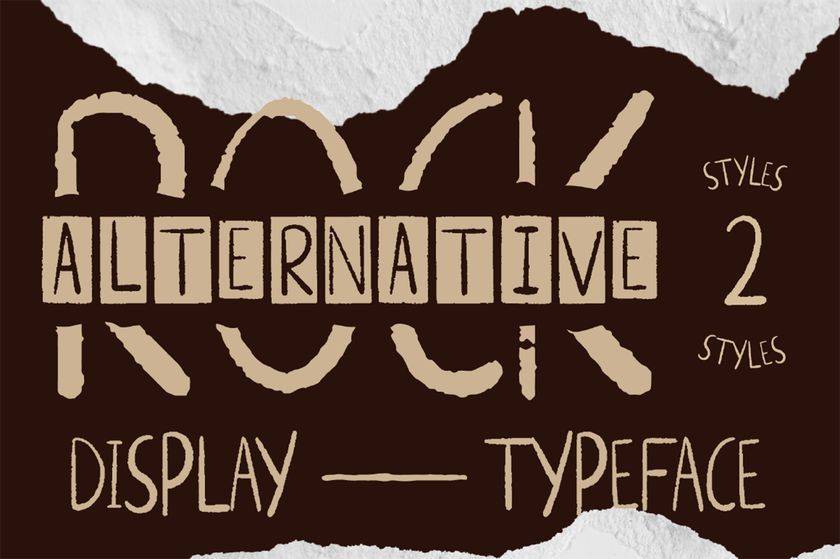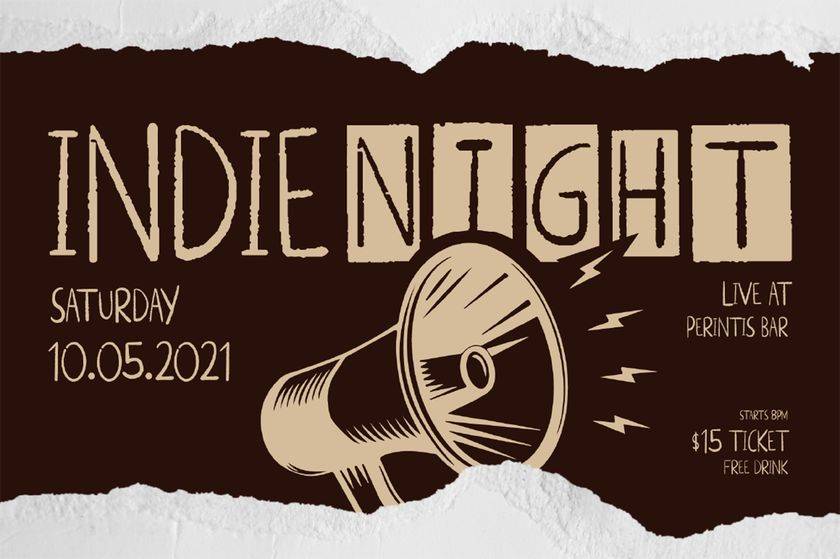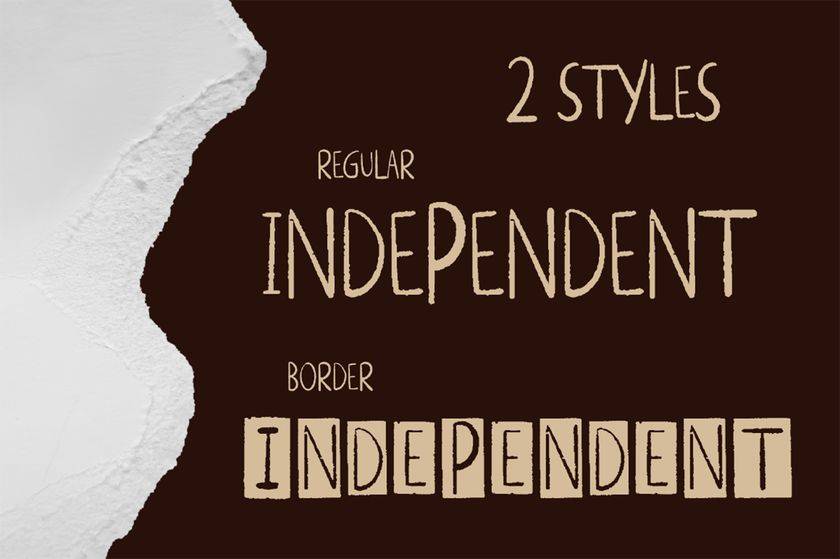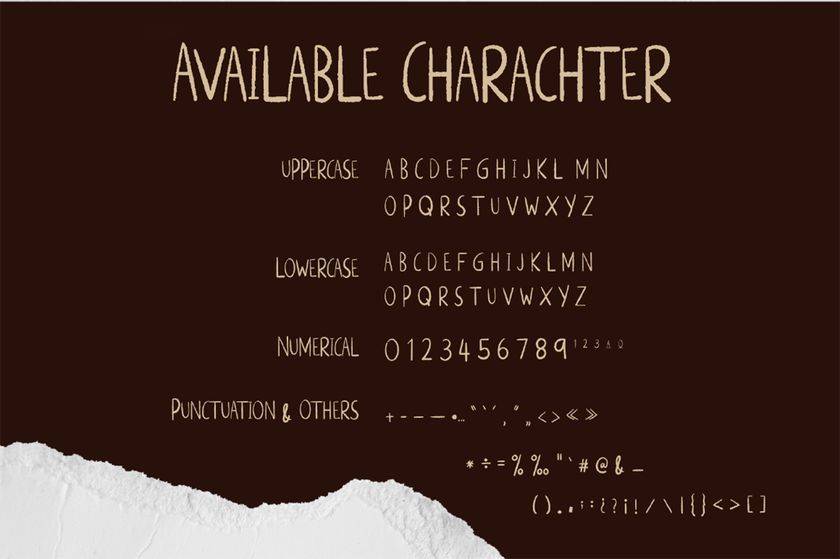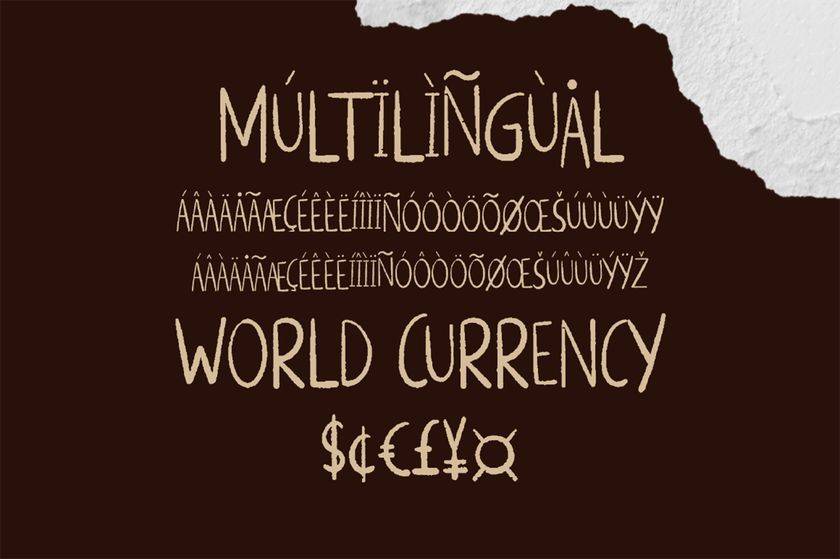
Alternative Rock Font is a playful, hand-drawn sans serif typeface with a casual, slightly rough texture that adds personality and energy. Its tall, narrow letterforms and uneven strokes give it a raw, artistic vibe perfect for creative projects, posters, and branding that wants to stand out with an alternative, indie feel. This font works best where a laid-back but distinctive style is desired, especially in youth culture and music-related designs.
Alternative Rock Font
About Alternative Rock Font
| Font family | Alternative Rock Font |
| Designer | Khairil Anwar |
| Trademark | Jetsmax Studio |